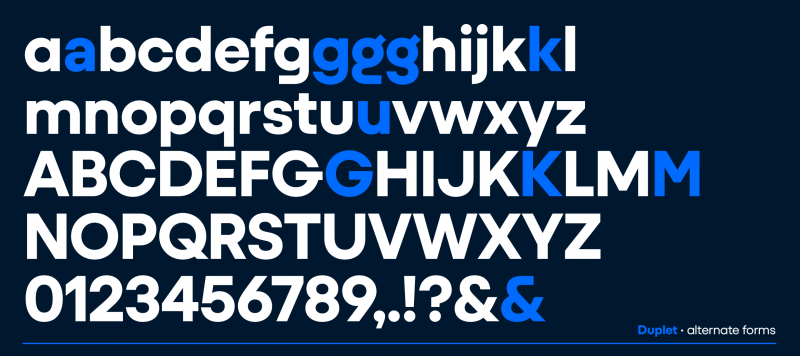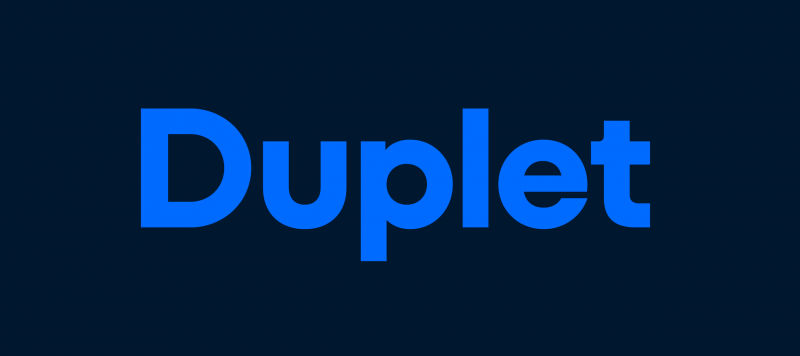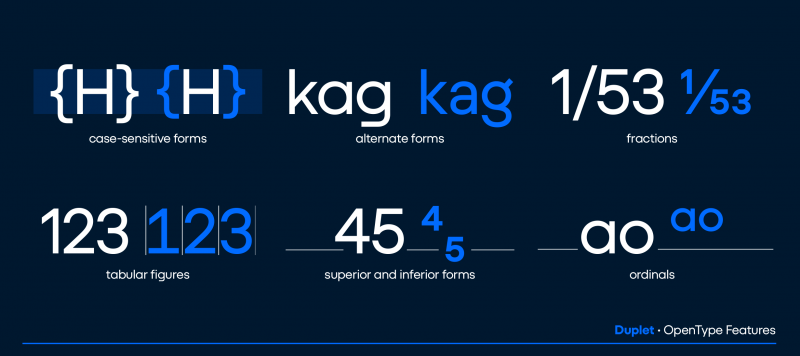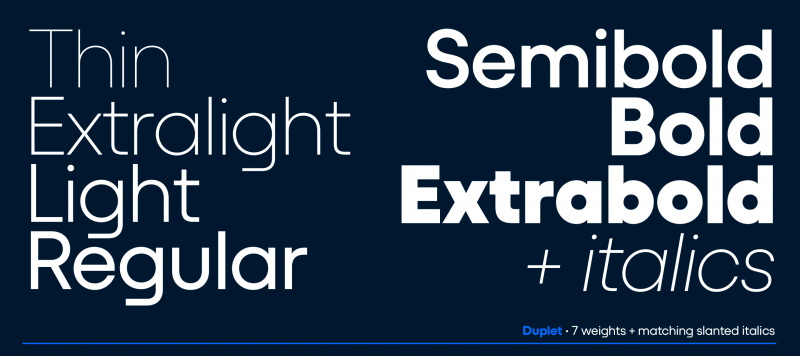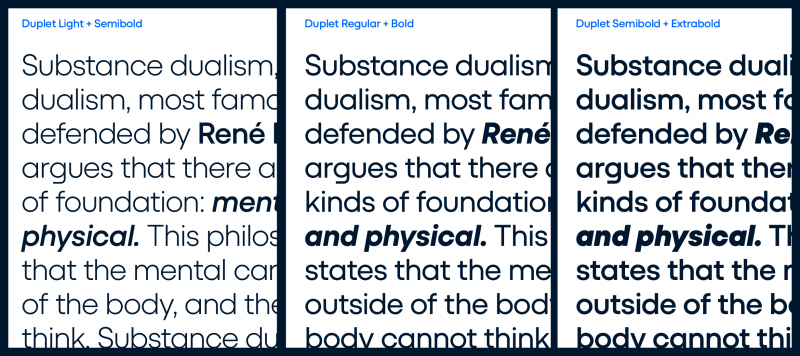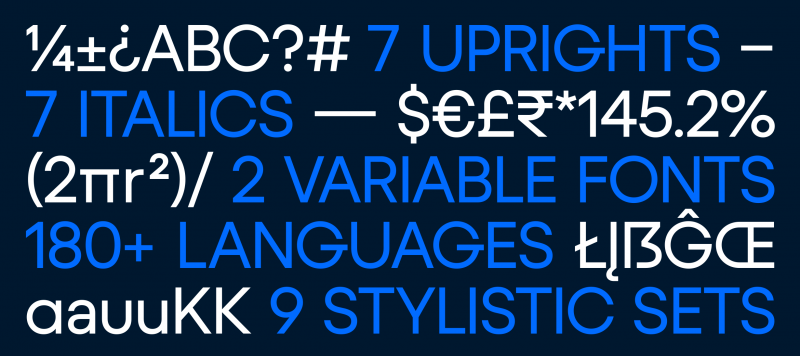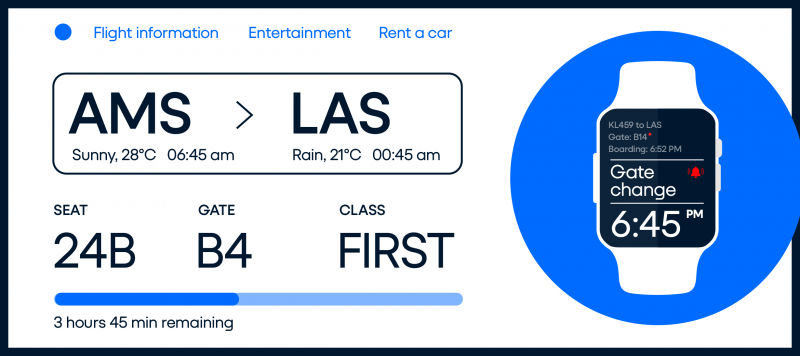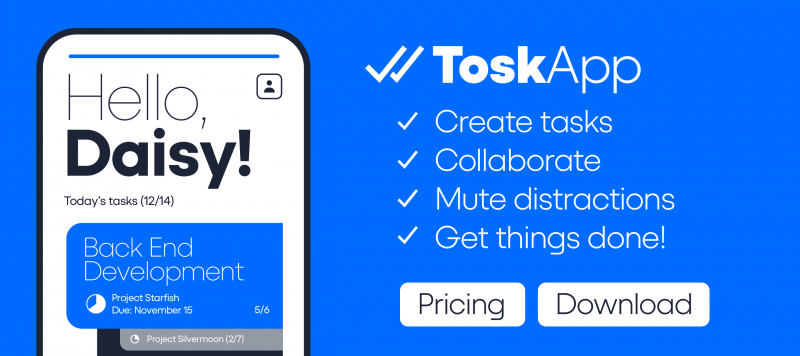
When you are looking for a typeface that can carry a tech message to readers, helps make communication easier and looks good, too – chances are high that you’ll select a geometric sans serif. These are the typefaces of today and tomorrow. From the headlines on news websites to the texts in apps and even company logos rendered large or small, geometric sans serifs are everywhere.
Duplet is part of a larger superfamily and can be combined with its relatives: Duplet Open and Duplet Rounded. Each contains seven weights ranging from Thin through ExtraBold, all with companion italics. The fonts include more than 450 glyphs, covering all the European languages written with the Latin script.
Since the Duplet fonts are geometric, the round characters and round-parts of letters appear either as circles or slanted circular forms (like you see in the italics). Duplet’s letterforms are very low-contrast with strokes that seem even in thickness. Since the fonts support dozens of languages written with the Latin script, their character sets include many accented letters.
The default form of the ‘a’ in each font is single-storey. The large round bowl drives Duplet’s inherent geometry home! But there is a double-storey ‘a’ as an OpenType alternate ‘a’. The default ‘g’ is also single-story, and its bottom stroke is flattened, giving it a streamlined, less-complicated look. Duplet fonts each feature three more ‘g’ versions as alternate characters.
There are also alternates for ‘k’, ‘u’, ‘G’, ‘K’, ‘M’ and the ampersand (&). The character sets include case-sensitive forms as well. Those are punctuation marks that are vertically repositioned and look better in all-caps texts. When it comes to numerals, both proportional and tabular lining figures are there – as well as fractions, superior numerals, and inferiors, too. Diana Ovezea and Rafał Buchner designed this typeface.
Family Name Duplet
Designer(s) Diana Ovezea, Rafał Buchner
Classification Sans